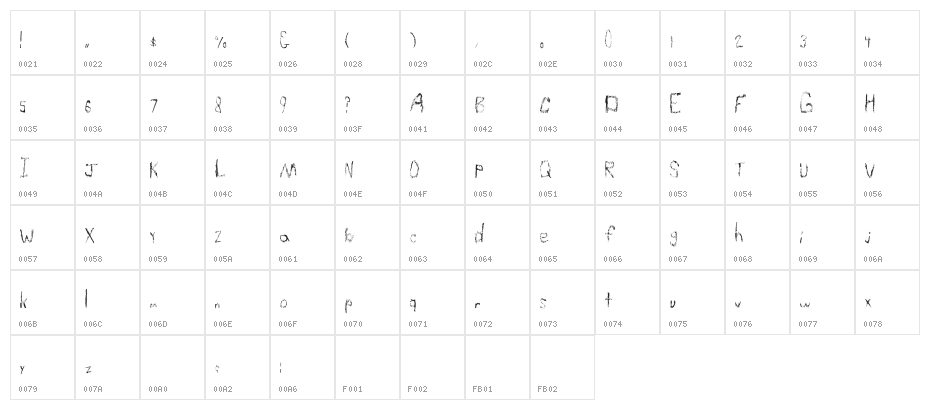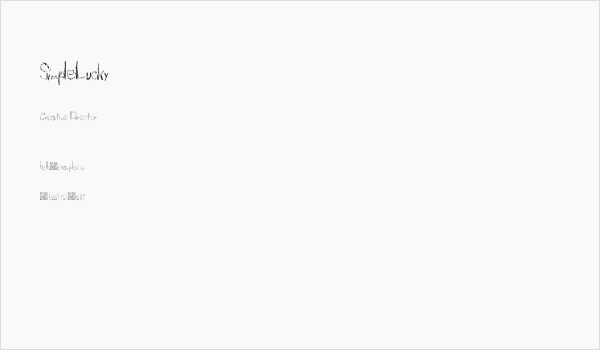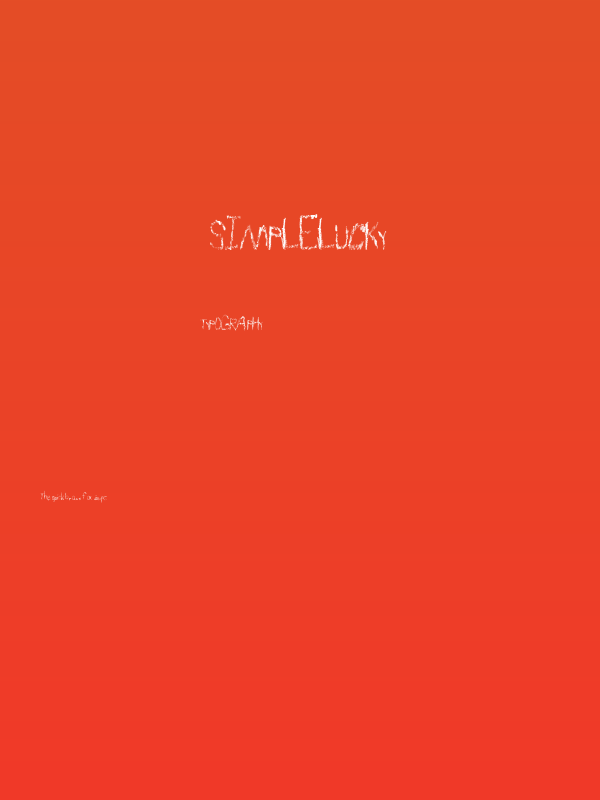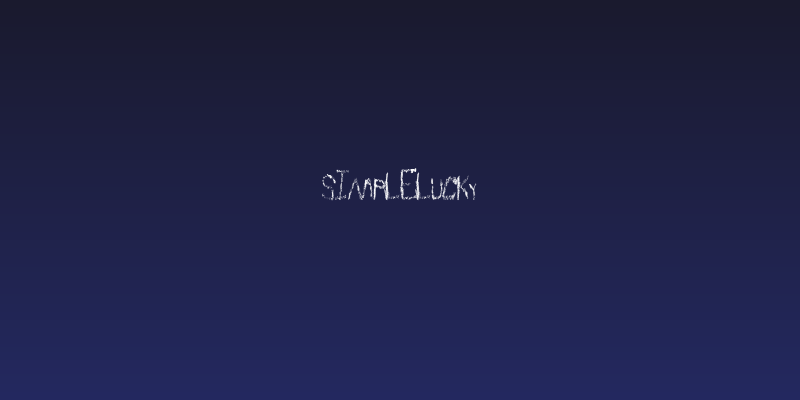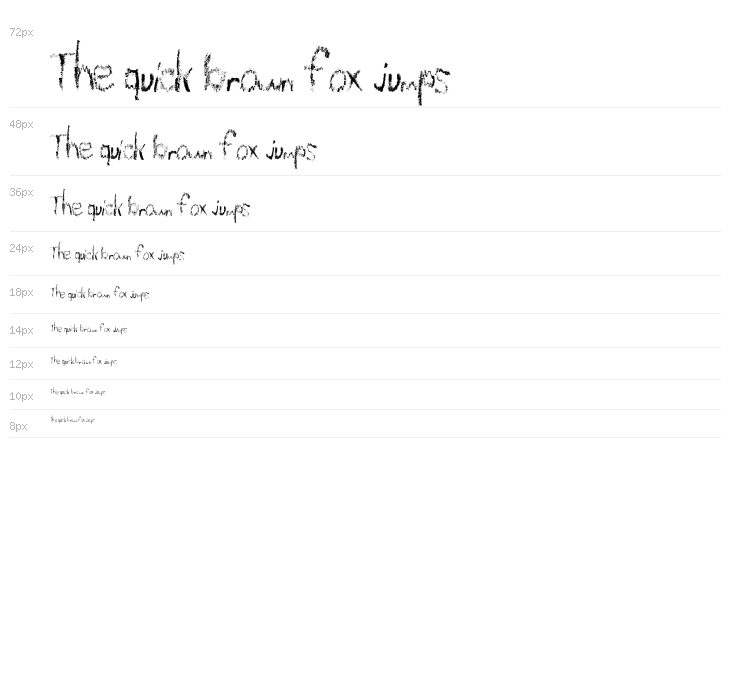
SimpleLucky Font
SimpleLucky Description
This font features a unique, distressed appearance, giving it a textured and hand-drawn look. The characters are irregular and slightly chaotic, with varying stroke thickness that creates a dynamic visual effect. The uppercase letters are bold and prominent, while the lowercase letters maintain a consistent style with a more delicate touch. Numbers and special characters follow the same rough, artistic style, making the font suitable for creative and unconventional designs. Its overall aesthetic is both edgy and artistic, perfect for projects that require a standout, gritty look.
| Overall Style | Artistic, Edgy |
| Proposed Projects | Ideal for album covers, posters, street art designs, and any project needing a bold, artistic touch. |